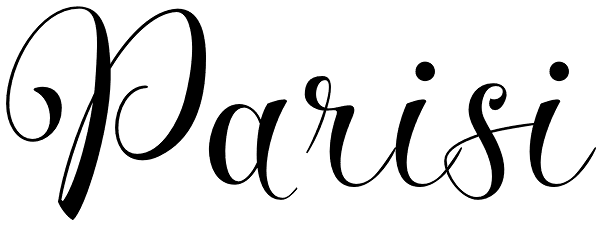
Parisi
The Parisii was a small Gallic people settled in the current Paris region, which gave its name to the city of Paris. According to Caesar (53 BC.), their main town (oppidum) was Lutetia (Paris). Parisii was born of inspiration to be leafing through...